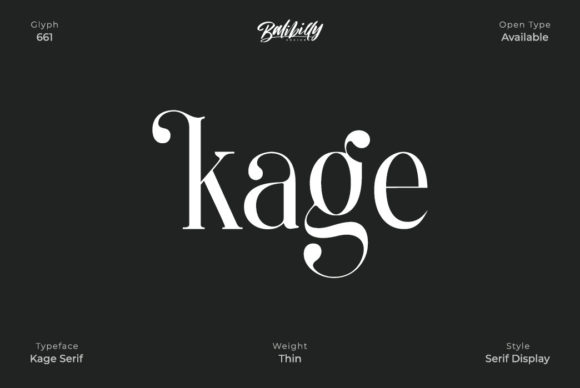
Immerse yourself in the world of Kage – Thin Font, a breathtaking serif font that encapsulates elegance, authenticity, and beauty. Designed by the talented Balibilly Design, Kage is more than just a font; it's an artistic expression that elevates your designs to new heights.
With its remarkable versatility, Kage seamlessly adapts to a myriad of projects, demanding a personalized touch. Whether you're crafting heartfelt wedding invitations, expressing gratitude with thank-you cards, or immortalizing special moments in greeting cards, Kage becomes an integral part of your creative vision. It effortlessly enhances logos, branding materials, and any endeavor that calls for a touch of sophistication.
Kage's PUA encoding opens up a world of possibilities, granting you effortless access to an array of glyphs and swashes. Unleash your creativity and explore new dimensions of visual expression. Each letterform in Kage is meticulously crafted, exuding a timeless charm that captivates audiences. Its delicate strokes and graceful curves evoke a sense of nostalgia, reminiscent of handwritten letters and treasured heirlooms.
Experience the allure of Kage in book titles, where its refined presence commands attention and sets the tone for an unforgettable reading journey. Its inherent elegance complements any genre, from captivating fiction to profound non-fiction, drawing readers into the depths of your storytelling.
Kage is not just a font; it's an experience. It's an invitation to embark on a creative journey, to explore the boundless realms of design, and to leave an everlasting impression on your audience. Let Kage be your guiding light, illuminating your path to artistic excellence.